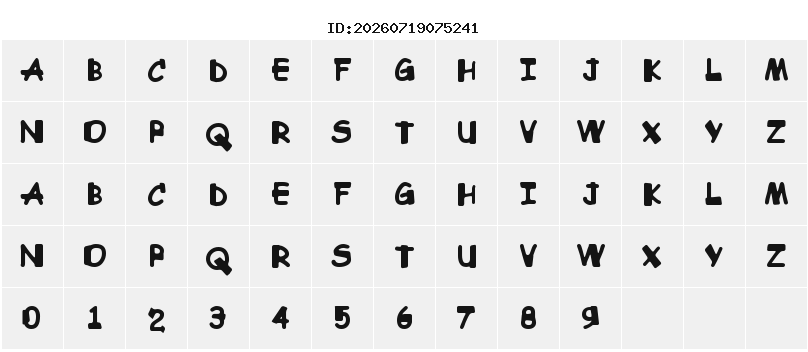
• Font Name: Comic Sandchez
• Designer: Woodcutter Manero
About Comic Sandchez.ttf
Comic Sandchez.ttf is a modern, elegant sans-serif font designed for ultimate readability and visual harmony. Perfect for branding, headlines, web design, and print materials.